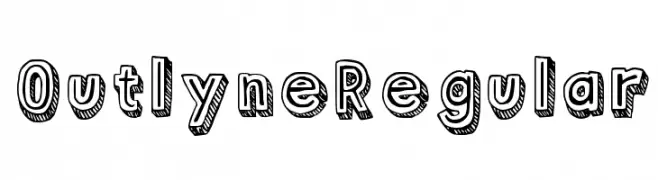
A bold, modern outline font with geometric structure and clear readability.
( Fonts by Graham Meade - GemFonts )
A bold, outlined font perfect for impactful headlines and decorative uses.
( Fonts by www.tepidmonkey.net )
A playful, hand-drawn outline font with a bold and whimsical style.
( Fonts by Graham Meade - GemFonts )
A modern, oblique outline font with geometric structure.
A futuristic, geometric outline font with sharp angles and straight lines.
( Fonts by Iconian Fonts - Daniel Zadorozny )
A futuristic, geometric outline font with a laser-cut appearance.
( Fonts by www.phantompower.de )
A bold, outlined font with a dynamic and modern style.
( Fonts by Graham Meade - GemFonts )
An intricate outline font with a decorative and artistic style.
( Fonts by Paul Lloyd )
A bold, outlined serif font with a classic yet modern appeal.
( Fonts by Graham Meade - GemFonts )
A modern, geometric outline font with sharp angles and clean lines.
( Fonts by Bree Gorton )
A bold, outlined font with a strong, decorative style.
( Fonts by Iconian Fonts - Daniel Zadorozny )
A bold, expanded outline font with a geometric and modern style.
( Fonts by dustBUST - Andreas Nylin )
A futuristic, outlined, italic font with a tech-inspired design.
( Fonts by Graham Meade - GemFonts )
A bold, geometric sans-serif font with outlined characters for a modern look.
( Fonts by Dieter Schumacher )
A bold, geometric outline font with a collegiate sports team vibe.
( Fonts by Paul Lloyd )
An elegant outline serif font with classic design and subtle flourishes.
( Fonts by Graham Meade - GemFonts )
A bold, outlined font with a rugged, hand-drawn appearance.
( Fonts by Dieter Schumacher )
A bold, angular outline font with a dynamic italic slant.
( Fonts by Graham Meade - GemFonts )
An ornate, Celtic-inspired font with intricate knotwork and decorative outlines.
( Fonts by Dieter Schumacher )
A bold, outlined font with a geometric and modern style.
A modern outline font with a double-line effect, offering a unique and dimensional look.
( Fonts by Graham Meade - GemFonts )
A modern, outlined font with geometric shapes and a playful touch.